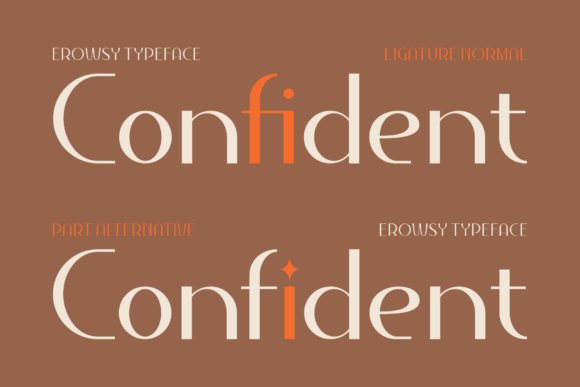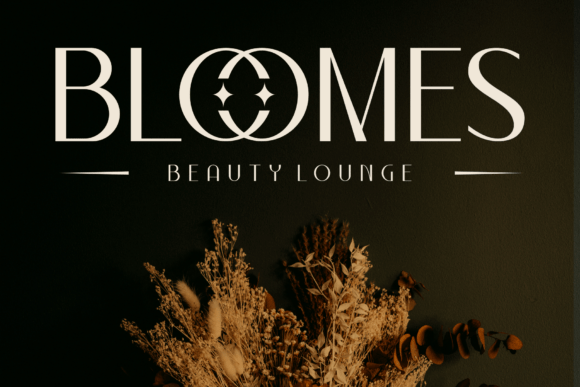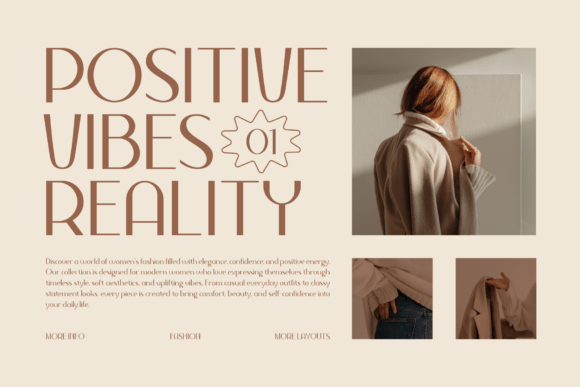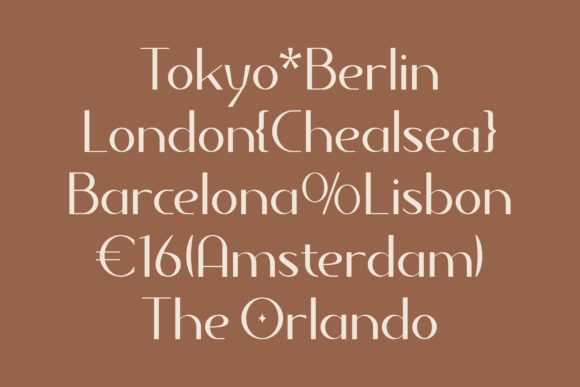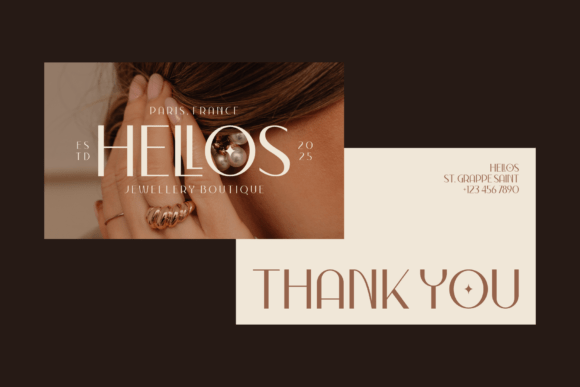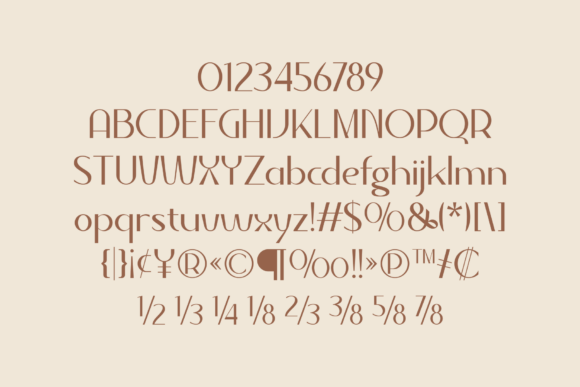
Introducing Erowsy Font: The Epitome of Elegance and Sophistication
In the world of typography, few fonts manage to strike a balance between modern sophistication and artistic expression as effortlessly as Erowsy. This minimalist and elegant sans serif typeface has been crafted with a keen eye for detail, resulting in a luxurious visual rhythm that feels both delicate and confident. Erowsy is more than just a font – it’s an experience, a statement of style that can elevate any design project to new heights.
The Design Philosophy Behind Erowsy
Erowsy’s design is rooted in a deep understanding of the needs of modern designers and crafters. Its tall, slender letterforms and refined curves are a testament to its luxurious aesthetic, making it an ideal choice for high-end fashion branding, beauty editorials, boutique logos, lifestyle magazines, jewelry packaging, and modern feminine designs. What sets Erowsy apart is its creative use of ligatures, alternates, and decorative symbols that seamlessly blend into the typography, adding a layer of sophistication and elegance.
A Perfect Blend of Modernity and Timelessness
Erowsy carries a soft contemporary aesthetic that feels fresh and modern, yet it maintains a timeless character that ensures it will remain relevant for years to come. This balance is no easy feat, but Erowsy achieves it with grace. Its smooth geometric structure is enhanced by subtle artistic details, giving every word a stylish and premium appearance without feeling excessive. This makes Erowsy a versatile font that can be used across a wide range of design projects, from digital platforms to print materials.
Readability and Visual Identity
One of the standout features of Erowsy is its clean spacing and elegant proportions. These characteristics not only make the typeface highly readable but also allow it to deliver a strong visual identity. Whether used in body text or headlines, Erowsy performs exceptionally well, ensuring that the message is communicated clearly and with style. Its ability to convey a sense of luxury and sophistication without compromising on readability makes it a valuable asset for designers.
The Artistic Touch: Ligatures, Alternates, and Decorative Symbols
Erowsy’s creative use of ligatures, alternates, and decorative symbols is what truly makes it shine. These elements add a level of customization and creativity to the font, allowing designers to add their personal touch to any project. The ligatures and alternates provide a natural flow to the text, making it more engaging and visually appealing. Meanwhile, the decorative symbols offer a range of possibilities for adding a unique flair to designs, making Erowsy a font that can truly stand out.
Erowsy: A Font that Embodies Warmth and Calmness
Despite its luxurious and sophisticated appearance, Erowsy also embodies a warm and calming atmosphere through its graceful strokes. This makes it an excellent choice for designs that aim to convey a sense of serenity and elegance. The font’s ability to balance warmth with sophistication is a testament to its thoughtful design, making it suitable for a wide range of applications, from branding and advertising to editorial and packaging design.
Why Choose Erowsy for Your Design Projects?
Choosing Erowsy for your design projects means opting for a font that offers more than just aesthetic appeal. It’s about selecting a typeface that understands the needs of modern design, from readability and versatility to style and sophistication. Erowsy is not just a font; it’s a design solution that can elevate your work, making it more engaging, luxurious, and memorable.
Erowsy font is a masterpiece of modern typography, offering a unique blend of elegance, sophistication, and artistic expression. Its versatility, readability, and stylish appearance make it an invaluable asset for designers and crafters looking to create high-quality, visually stunning designs. Whether you’re working on a fashion brand, a beauty editorial, or any project that demands a touch of luxury, Erowsy is the perfect choice. Experience the elegance and sophistication that Erowsy brings to the world of design.